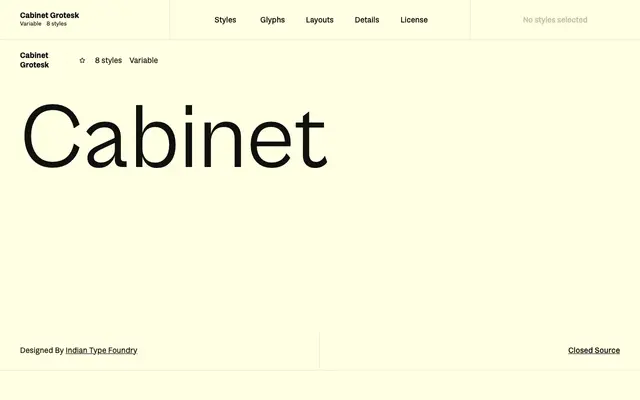
Cabinet Grotesk
Fontshare · Indian Type Foundry · 2021
A contemporary grotesque from Indian Type Foundry with visible stroke contrast that becomes most pronounced as a pinched quality at stroke connections in heavier weights.
Eight static weights from Thin to Black, plus a variable font, all carrying a consistent stroke-contrast model uncommon in grotesque sans designs. Double-storey 'a' and 'g' are the default with single-storey alternates available via Stylistic Sets, and the family includes 19 ligatures, case-sensitive punctuation and a Dutch IJ form. The ITF Free Font License makes it freely available through Fontshare, and it covers 135 languages across an extended Latin character set.
A contemporary grotesque sans with notable stroke contrast running through all eight weights, distinguishing it from neutral grotesques and giving it a more characterful, editorial quality.